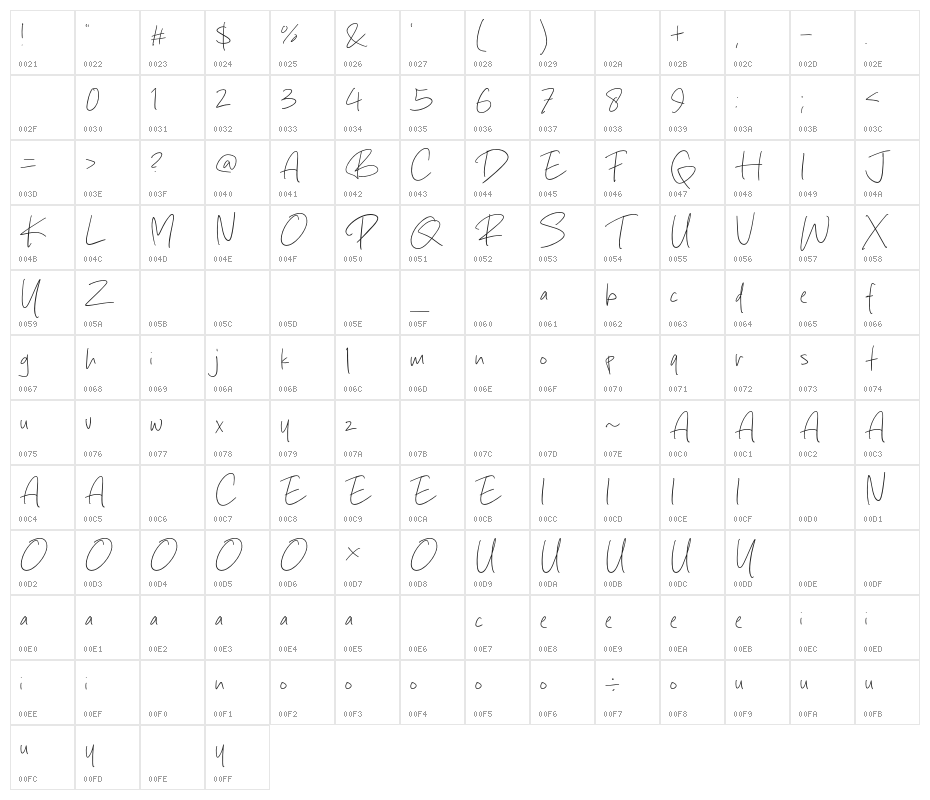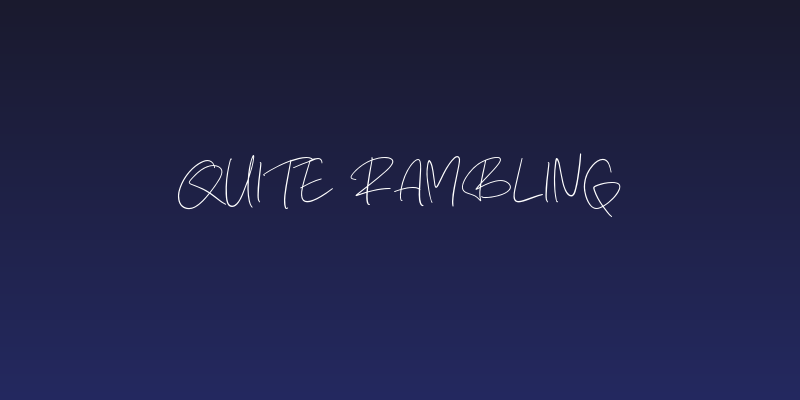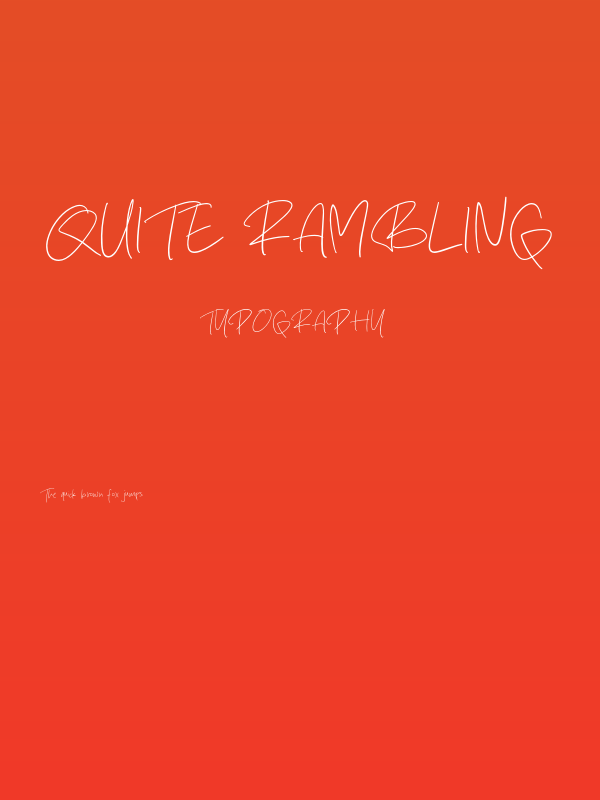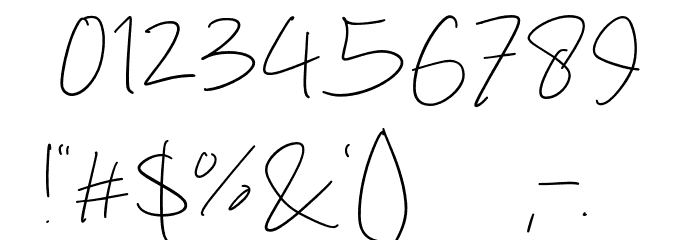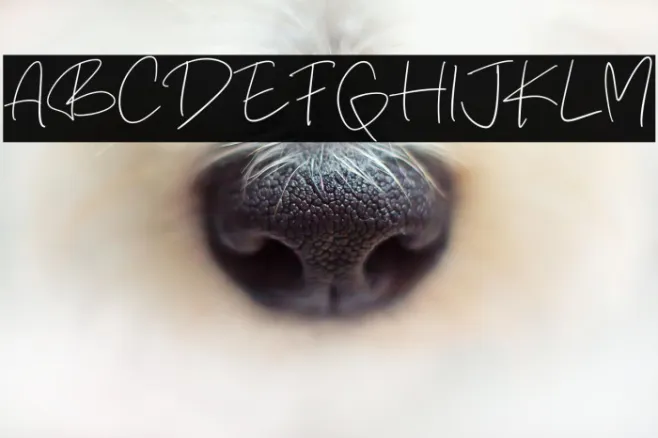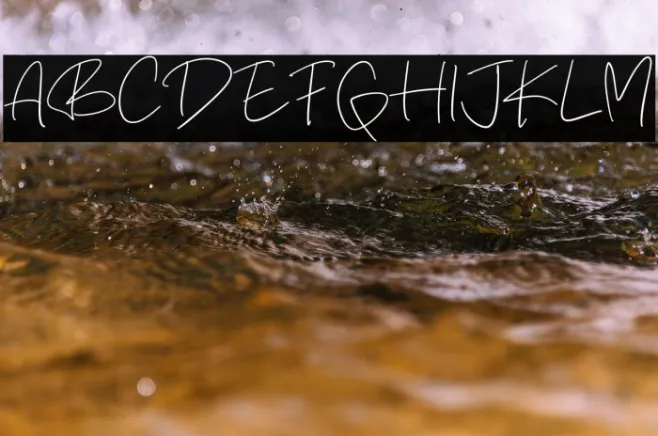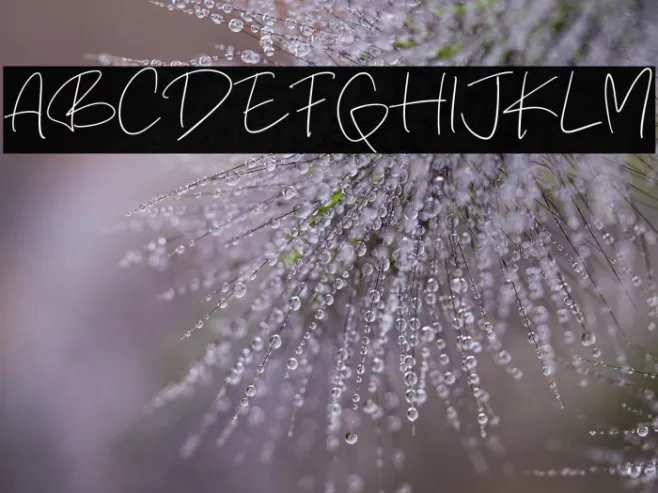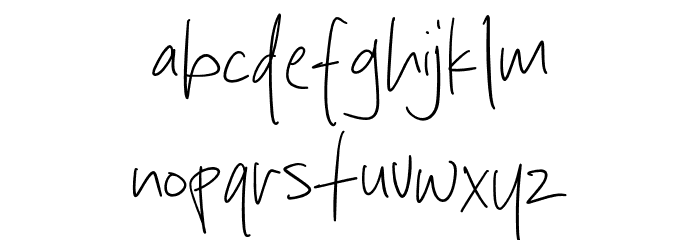
Quite Rambling Font
Quite Rambling Description
This font exudes a casual and spontaneous feel, characterized by its handwritten style. The letters are fluid and slightly irregular, giving it a personal touch that mimics natural handwriting. The strokes are thin and consistent, providing a sense of elegance and simplicity. The uppercase and lowercase letters maintain a cohesive style, while the numerals and special characters blend seamlessly into the overall design. This font is versatile, offering a relaxed yet sophisticated look suitable for various creative projects.
| Use Case | Logos, Invitations, Social Media Graphics |
| Proposed Projects | Ideal for personal invitations, greeting cards, casual branding, and social media graphics. |